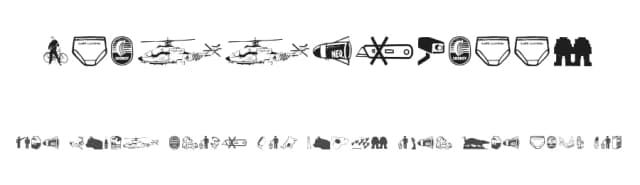
About Fasten Your Seat Belt Font
Fasten Your Seat Belt is a dingbat font designed by pheist. It includes 71 glyphs, a regular weight, OTF (CFF) format, and 89 languages. Fasten Your Seat Belt is free to download; check the license details on this page before commercial use. Dingbat fonts like Fasten Your Seat Belt work best for icons, ornaments, bullet points, and decorative accents.
| Designer | Stefanie Koerner |
Fasten Your Seat Belt Font is a versatile dingbats font that works for both headings and body text. Pair it with a contrasting sans-serif or serif font to add visual interest and a clear distinction between titles and body copy.
Fasten Your Seat Belt Font
by pheist